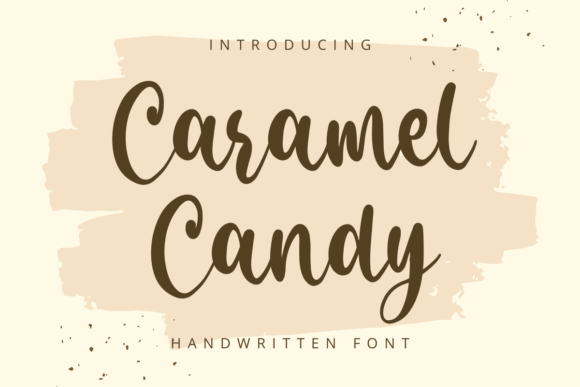
**Indulge in the Sweetest Script: Caramel Candy Font**
Escape into a world of sugary delight with Caramel Candy, the most enchanting script font that will ignite your creativity and leave a lasting impression. Each letter dances across the page like a delicate ribbon of spun sugar, promising to captivate your audience with its irresistible charm.
Caramel Candy is the brainchild of Fashion Creative, a visionary font designer known for their impeccable taste and meticulous craftsmanship. Every curve and flourish has been meticulously crafted to evoke a sense of elegance and warmth, making it the perfect font for those seeking a touch of sweetness in their designs.
**Unleash Your Imagination with Endless Possibilities**
Caramel Candy's versatility knows no bounds, making it the ideal choice for a myriad of projects. Whether you're crafting captivating logos that exude professionalism, designing eye-catching branding that turns heads, or creating social media posts that spark engagement, Caramel Candy will elevate your designs to new heights.
**Elevate Your Ebooks to Literary Delights**
For authors and publishers seeking the perfect font to adorn their ebook titles, Caramel Candy emerges as a shining star. Its whimsical charm and legible script effortlessly draw readers into your captivating tales, setting the stage for an unforgettable reading experience.
**Indulge in a Symphony of Creative Delights**
Caramel Candy opens up a realm of possibilities for your creative endeavors. Use it to craft enchanting product packaging that tempts customers, design labels that add a touch of sweetness to your products, or create invitations for special events that will leave a lasting impression.